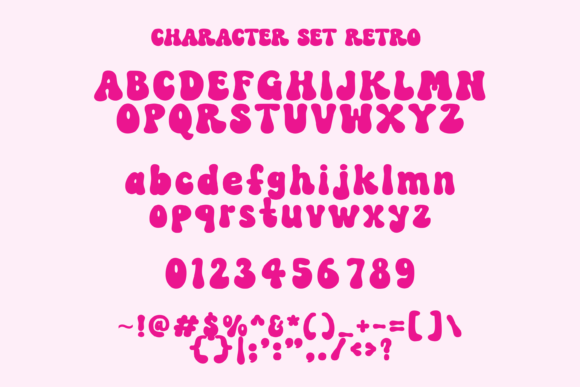
Retro Grinch Font
Retro Grinch is a cool retro duo font (display script and Groovy). Great for quotes Christmas typography, quote retro typography, t-shirts, tote bags, greeting cards, mugs, and any design that needs a fun look.